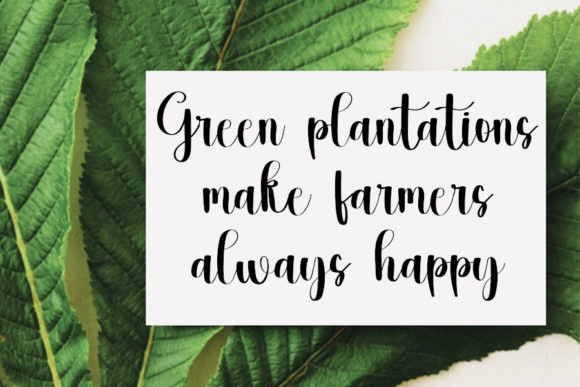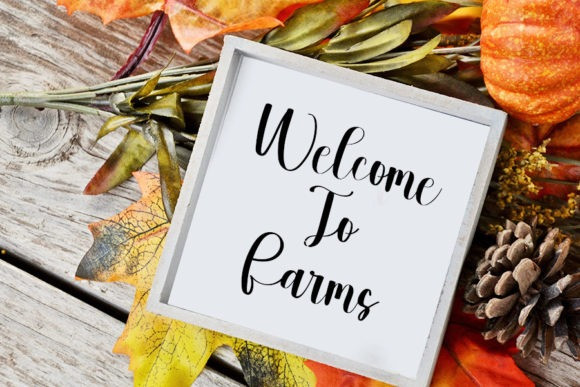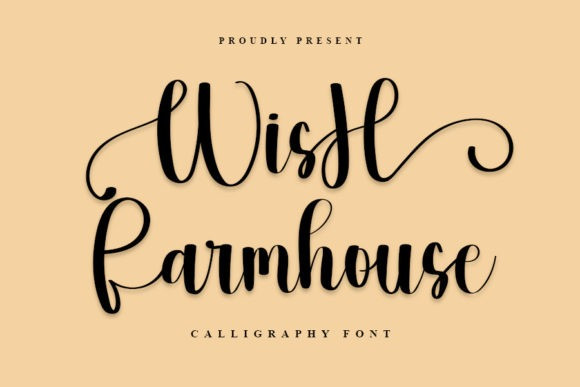
Wish Farmhouse Font
Wish Farmhouse Font is a gorgeous and bold handwritten font. It reads as confident and dynamic and can add tons of nostalgic character to your designs. Fall in love with its incredibly versatile style and use it to create spectacular designs!